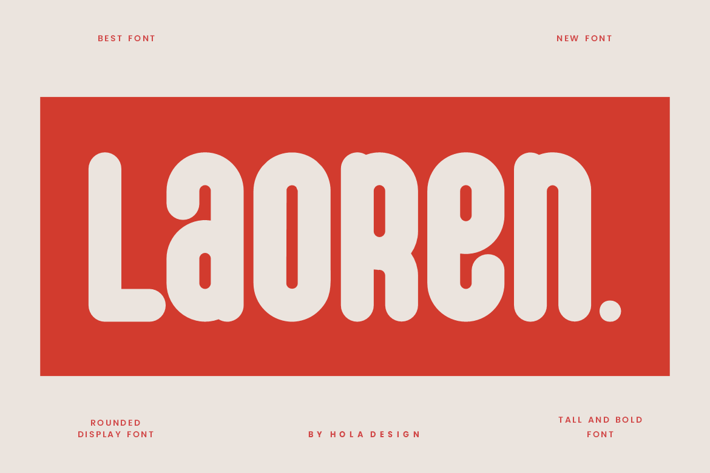
Laoren - Round & Tall Font
Laoren - Round & Tall Font is unique . Ready to use for your design like labeling, movie sceen, poster, movie title, gigs, album covers, logos, and much more.